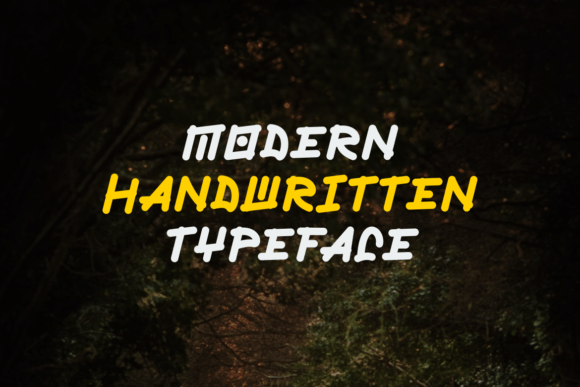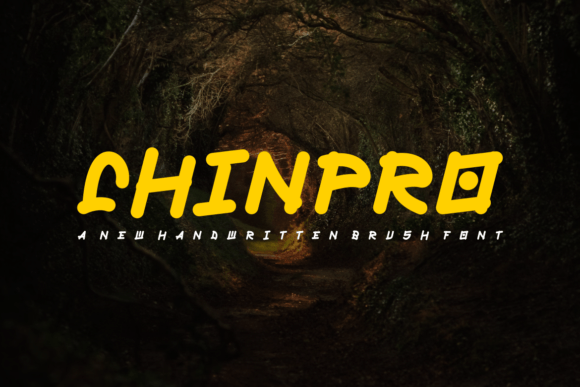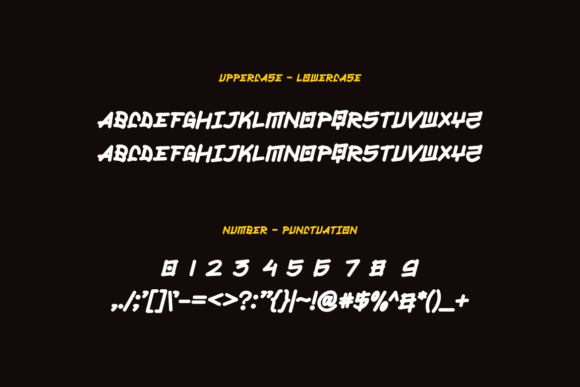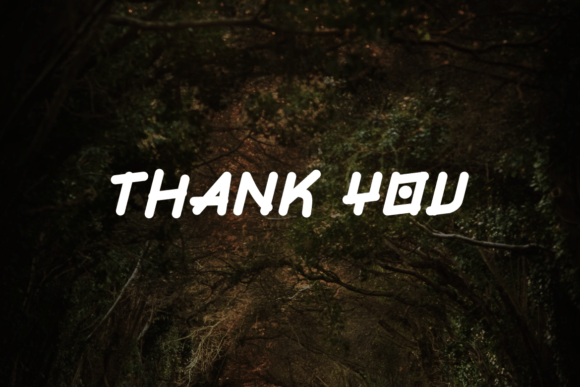
Introduction to Chinpro Font
Have you ever found yourself in the midst of a creative project, struggling to find the perfect font to bring your vision to life? You’ve scoured through countless design resources, only to come up empty-handed. But what if I told you that there’s a font that can add a personal, artistic touch to your designs without breaking the bank? Say hello to the Chinpro Font, a stunning brush handwritten font that’s perfect for adding a touch of elegance and whimsy to your next creative project.
The Chinpro Font is more than just a font – it’s a design game-changer. With its high-quality, brush-painted look, it’s perfect for designers who want to add a unique, handcrafted feel to their designs. And the best part? It’s available for free download, making it a valuable resource for designers of all levels.
Key Features of Chinpro Font
- High-quality design resource with a unique, creative style, perfect for various projects.
- Features a transparent background, making it ideal for use on any background color or image.
- Designed to be highly legible and readable, even at small font sizes, making it perfect for creative projects.
- Includes a wide range of characters, including Latin, Cyrillic, and Greek alphabets, for global language support.
Honest Review: Chinpro Font
I recently came across the Chinpro Font and was excited to give it a try. As a designer, I’m always on the lookout for high-quality design resources to enhance my creative projects.
The Chinpro Font has a modern and sleek design that works well for a variety of applications, including logos, headings, and body text. ✨ I particularly like the clean lines and minimalistic approach, making it perfect for a wide range of design styles.
One of the standout features of the Chinpro Font is its transparent background, which allows for seamless integration into any design project. This feature is especially useful when working with complex backgrounds or layered compositions.
Here are some of the key features of the Chinpro Font:
- High-quality design with clean lines and minimalistic approach
- Transparent background for easy integration into design projects
Overall, I’m impressed with the Chinpro Font and would definitely recommend it to designers looking for a high-quality, versatile font for their creative projects.
For the best results, use the Chinpro Font in conjunction with other high-quality design resources. Experiment with different font sizes, colors, and styles to create unique and eye-catching designs. You can also use the font in combination with transparent backgrounds to create a seamless and professional look.
The Chinpro Font is perfect for use in a variety of creative projects, including logos, brochures, social media graphics, presentations, reports, and documents. Its high-quality and transparent background features make it a great resource for designers, artists, and writers.